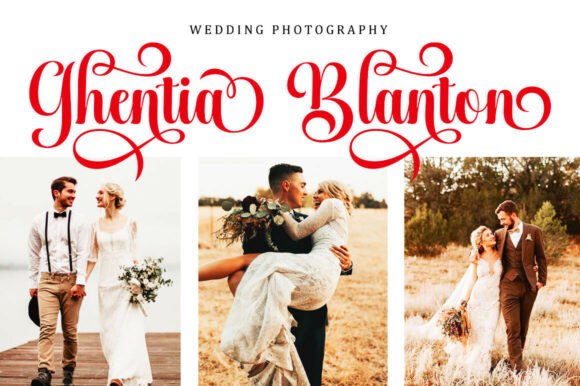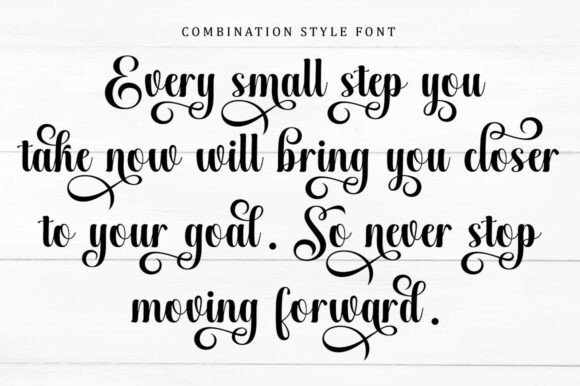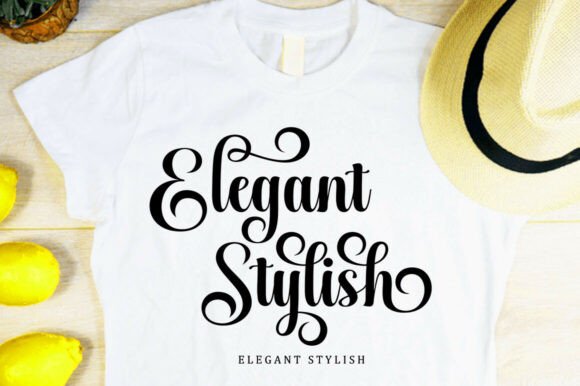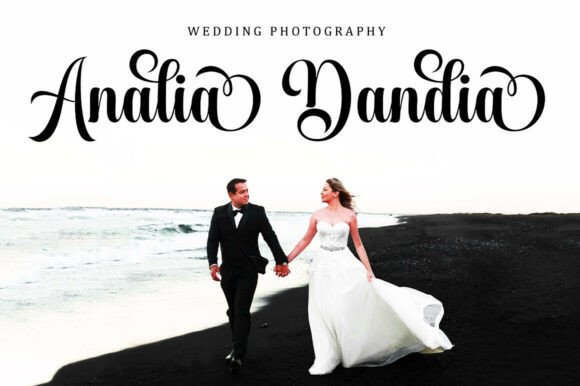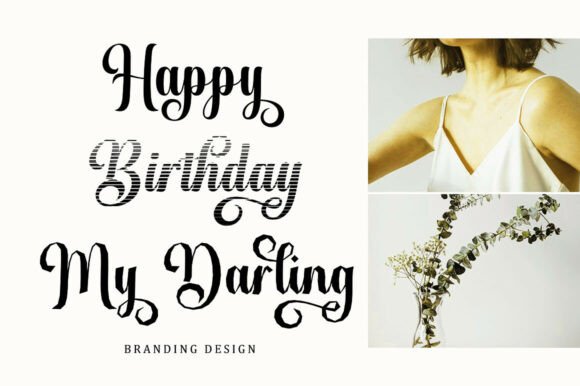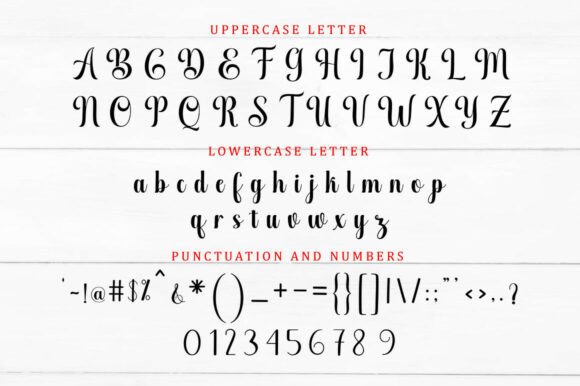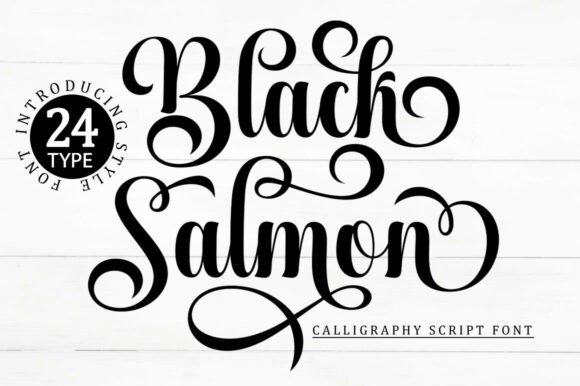
Introducing Black Salmon: The Calligraphy Script Font for Discerning Designers
In the world of typography, few fonts capture the essence of luxury and sophistication as effortlessly as Black Salmon. This stunning calligraphy script font is a masterclass in fluid elegance, boasting dramatic, high-contrast strokes and sweeping, rhythmic flourishes that evoke the feeling of hand-inked bespoke lettering. Whether you’re a designer seeking to elevate your brand’s visual identity or a crafter looking to add a touch of refinement to your projects, Black Salmon is the perfect choice.
The Art of Fluid Typography
Black Salmon’s unique charm lies in its ability to seamlessly blend traditional penmanship with modern aesthetics. The font’s elegant loops and tapered terminals create a sense of movement and fluidity, imbuing every word with a sense of handcrafted prestige. This is a font that whispers luxury, sophistication, and refinement, making it an exceptional choice for high-end applications such as luxury wedding stationery, artisanal branding, gourmet packaging, and chic editorial headers.
Crafting Timeless Elegance
One of the defining characteristics of Black Salmon is its ability to convey a sense of timeless elegance. In an era where digital design dominates, this font’s hand-inked feel provides a refreshing respite from the cold, impersonal world of digital typography. Whether you’re designing a bespoke logo for a high-end boutique or a personalized invitation for a special occasion, Black Salmon brings a level of warmth and personality to your visual storytelling that’s hard to replicate with more generic fonts.
Black Salmon’s versatility is another one of its standout features. This font can be used in a wide range of creative applications, from elegant wedding stationery and luxury branding to gourmet packaging and editorial design. Its unique blend of traditional and modern elements makes it an excellent choice for designers seeking to create visual identities that are both refined and distinctive.
Key Features of Black Salmon
- Dramatic, high-contrast strokes: Create a sense of depth and dimensionality, adding visual interest to your designs.
- Sweeping, rhythmic flourishes: Add a touch of elegance and sophistication to your typography.
- Elegant loops and tapered terminals: Combine to create a sense of fluidity and movement.
- Hand-inked feel: Provides a level of warmth and personality that’s hard to replicate with digital fonts.
- Seamless blend of traditional and modern elements: Makes Black Salmon an excellent choice for designers seeking to create refined, distinctive visual identities.
Applications for Black Salmon
So, where can you use this stunning calligraphy script font? The possibilities are endless, but here are a few ideas to get you started:
- Luxury wedding stationery: Create beautiful, bespoke wedding invitations, save-the-dates, and thank-you cards that reflect your couple’s unique style.
- Artisanal branding: Elevate your brand’s visual identity with a custom logo that exudes sophistication and refinement.
- Gourmet packaging: Add a touch of luxury to your product packaging with Black Salmon’s elegant, hand-inked typography.
- Chic editorial headers: Use Black Salmon to create eye-catching headlines and titles for your editorial projects, such as magazines, blogs, and newspapers.
In conclusion, Black Salmon is a truly exceptional calligraphy script font that embodies the perfect blend of fluid elegance and artistic sophistication. With its dramatic, high-contrast strokes, sweeping flourishes, and elegant loops, this font is sure to elevate your creative palette and bring a level of refinement to your visual storytelling. Whether you’re a designer, crafter, or simply someone who appreciates beautiful typography, Black Salmon is an excellent choice for anyone seeking to add a touch of luxury and sophistication to their projects.